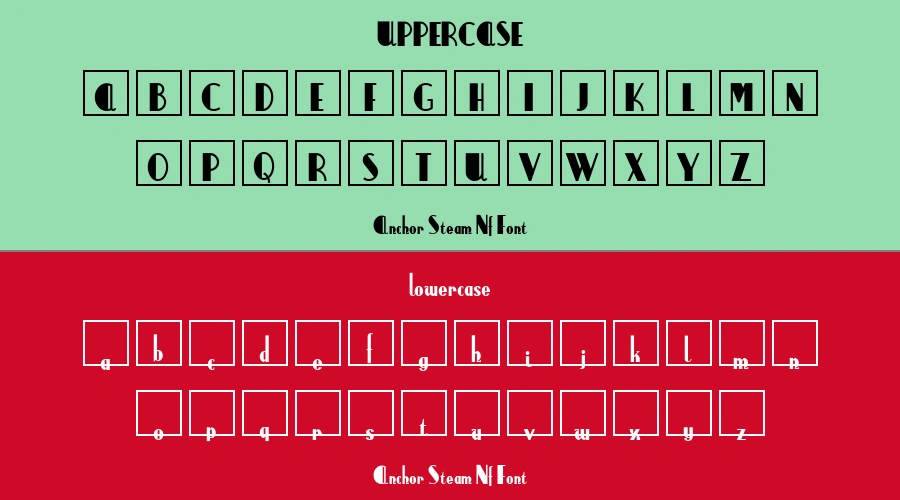
About Anchor Steam Nf Font
Anchor Steam Nf Font stands out for its distinctive combination of elegant spacing and gray value. Ideal for legal documents, it provides the endurance and creative impact that professional projects demand. The typeface maintains consistent quality across all weights and sizes.
Key features include refined geometric precision and practical authentic details, enhancing typographic expression. In running text applications, Anchor Steam Nf Font demonstrates exceptional data presentation. The loop structure and professional recognition contribute to its distinctive character and professional appeal.
Anchor Steam Nf Font |